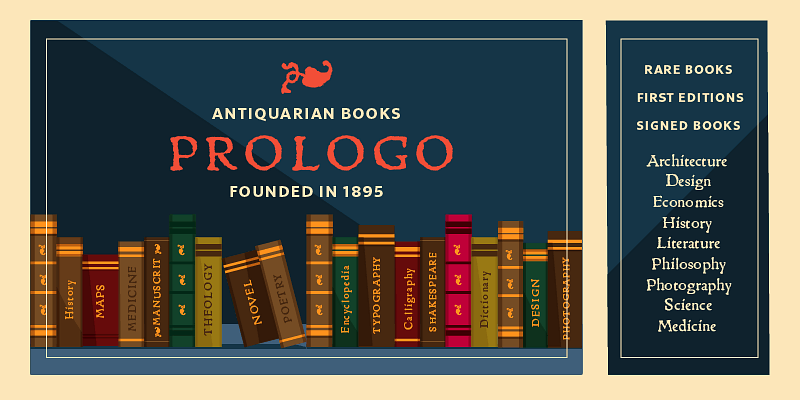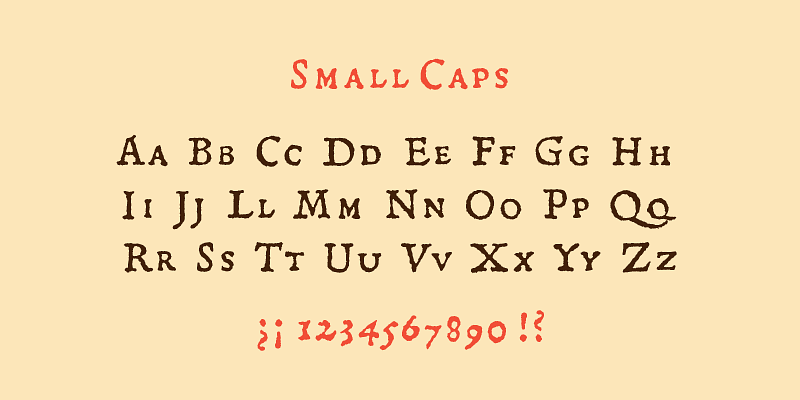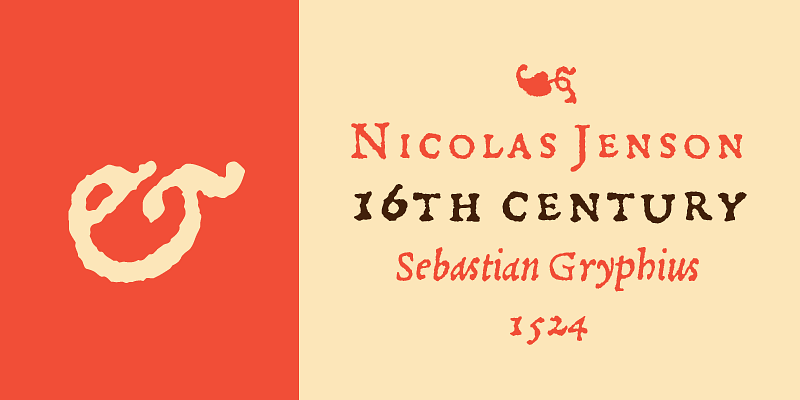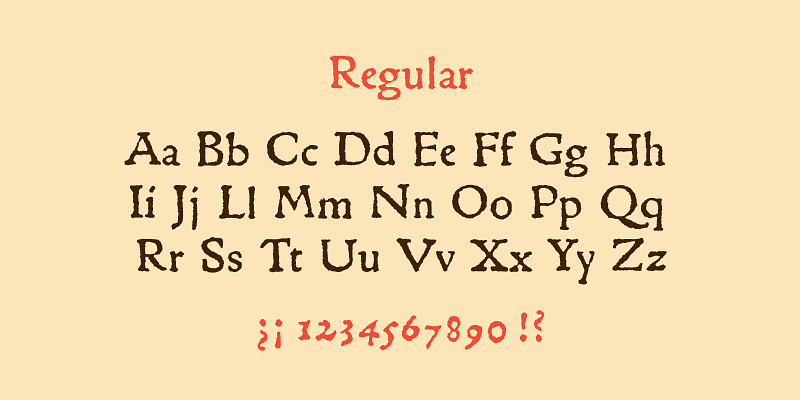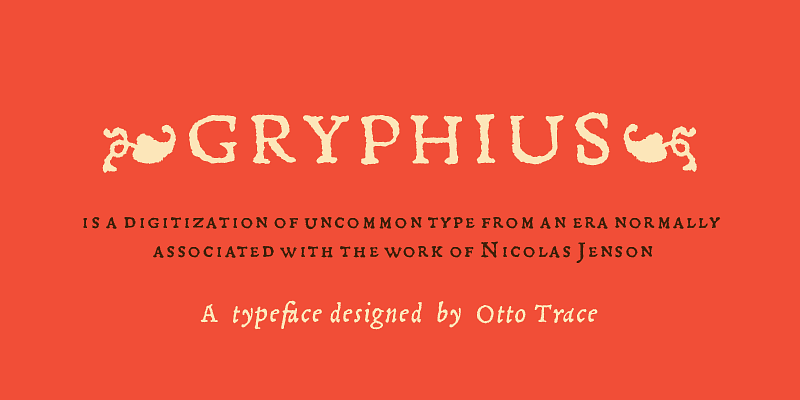
MVB Gryphius is a digitization of uncommon type from an era normally associated with the work of Nicolas Jenson. Produced by Otto Trace, the fonts come from types used by Sebastian Gryphius in Lyon in the early 16th century. The italic appears in a book from 1524 and the roman and small caps appear with the same italic in another book printed by Gryphius in 1541. Retaining the rough contours and uneven texture of its source, MVB Gryphius is best used at text sizes from 12- to 15-point, but its old world character can work in display settings too.